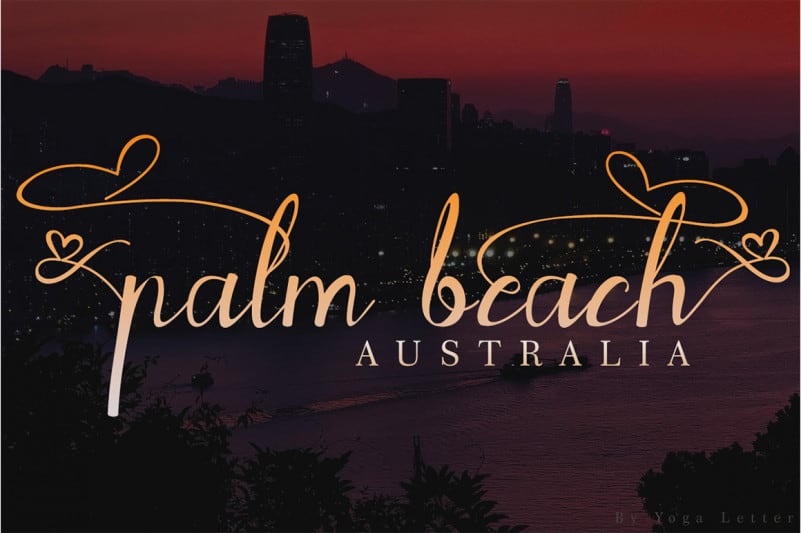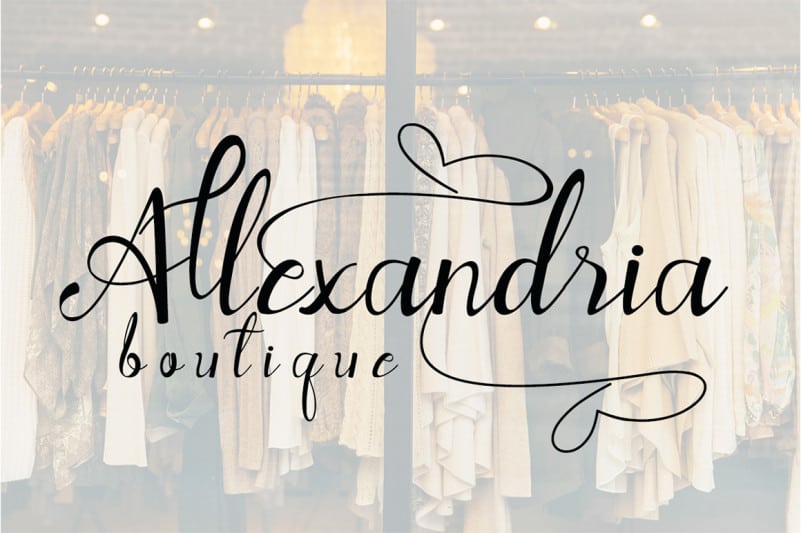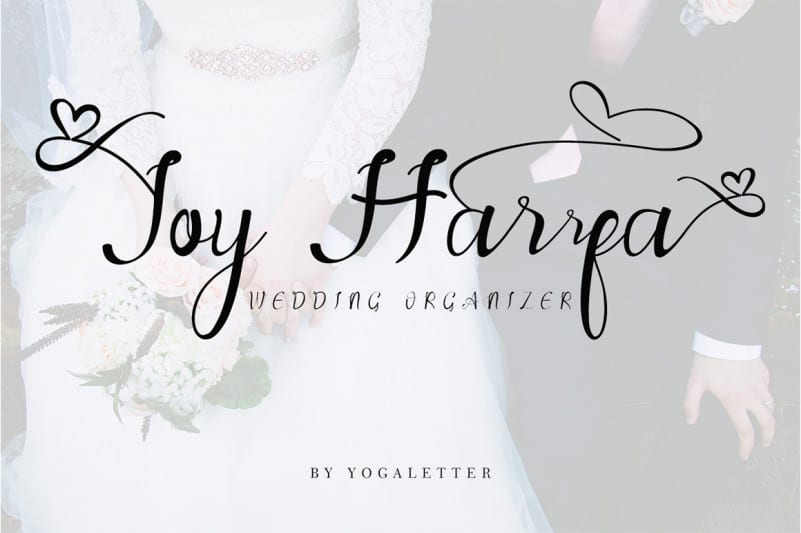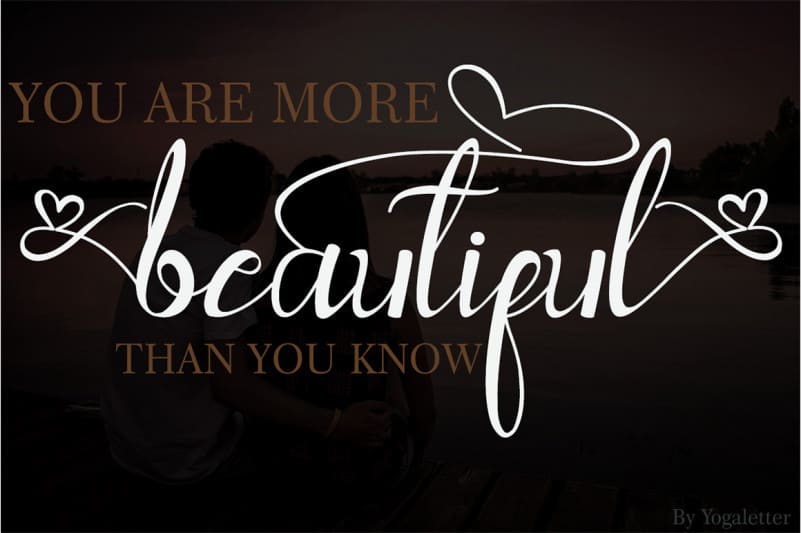
Agatha Calligraphy Font is a beautiful and elegant modern calligraphy font. This font can be used for many projects. It is suitable for writing wedding invitations, wedding planners and all writings related to romanticism. This font is also very supportive for marketing products, helping to market the work. It is also suitable for capturing precious moments while on vacation or supporting writing in social media.